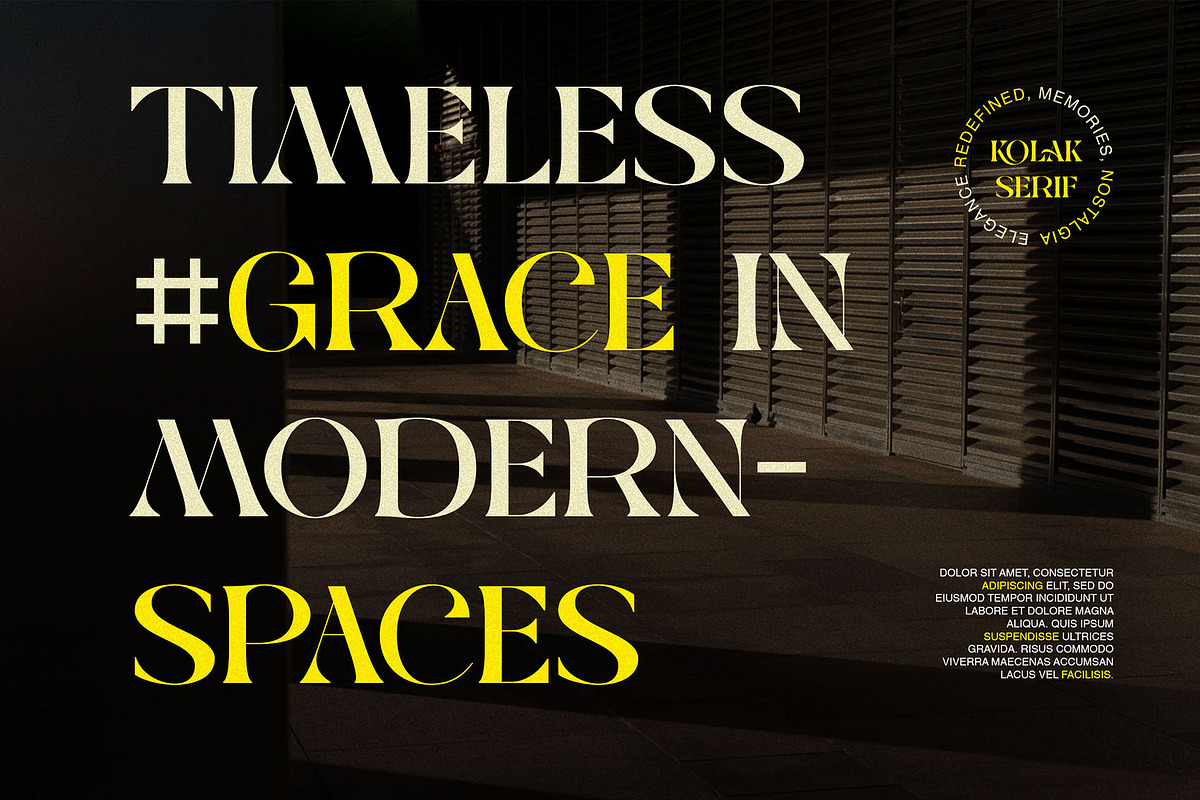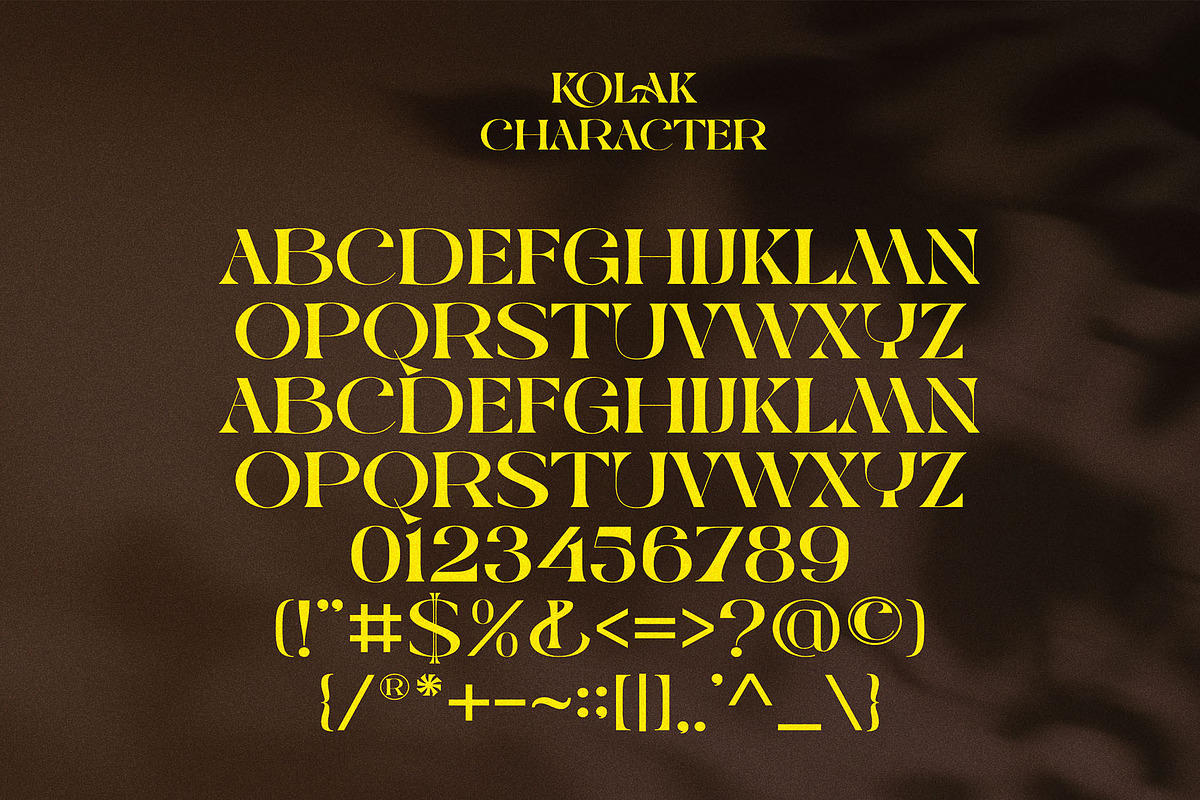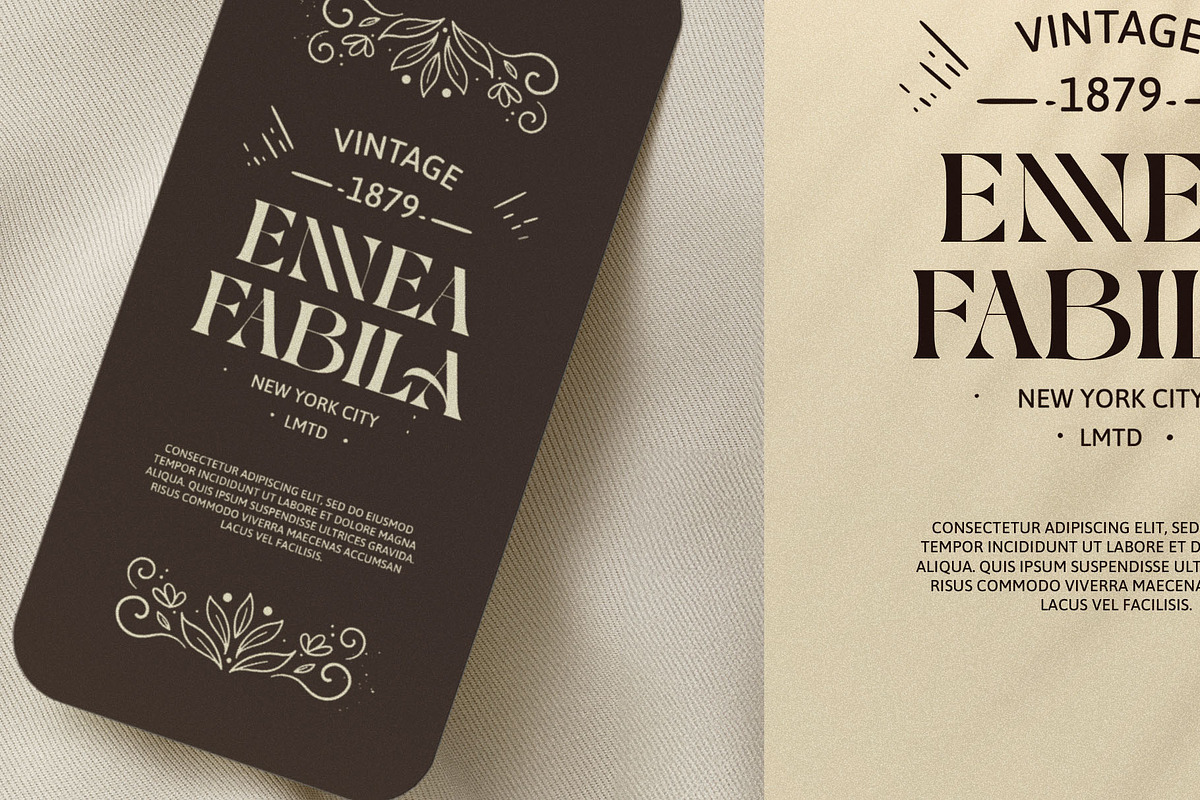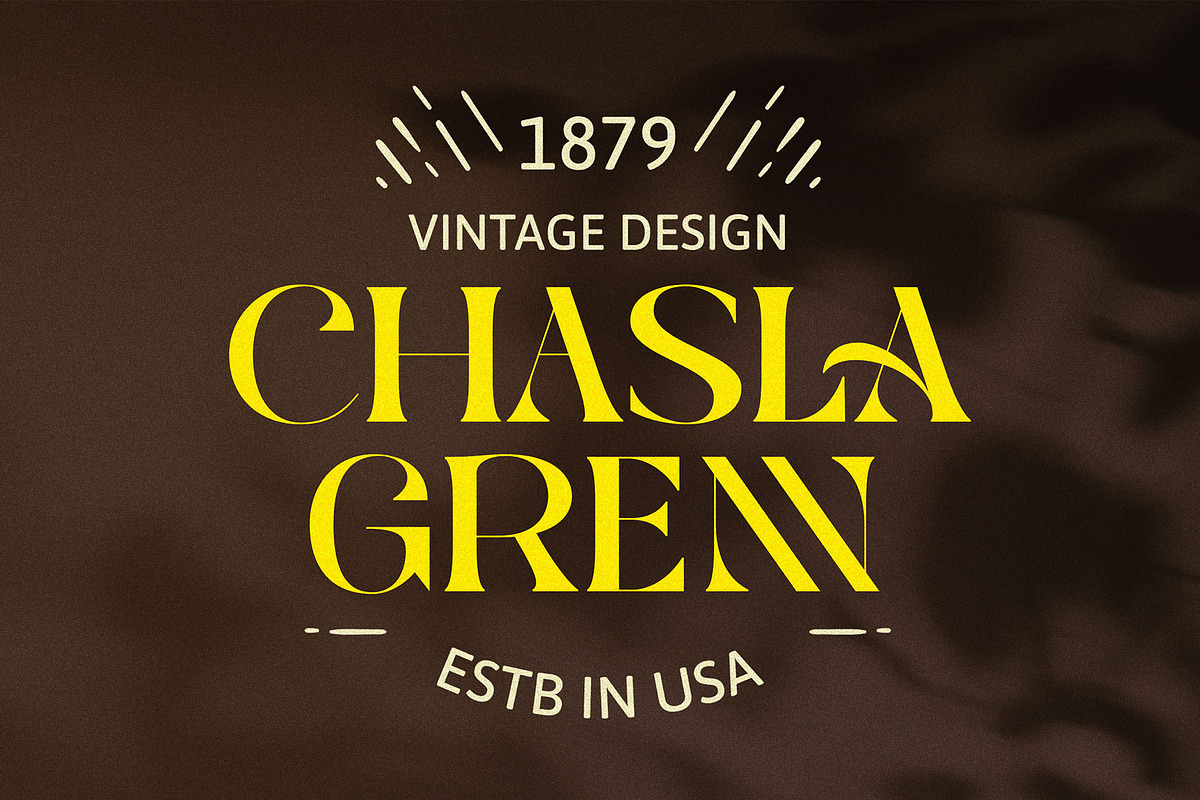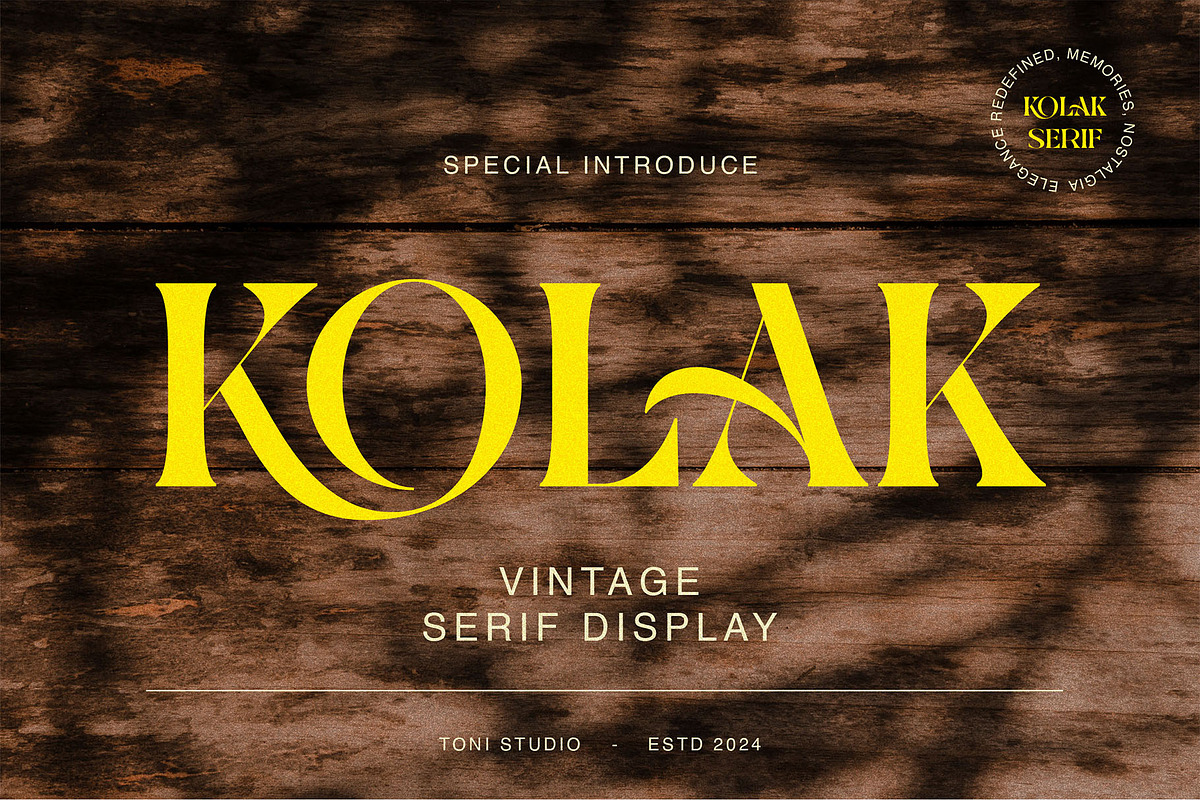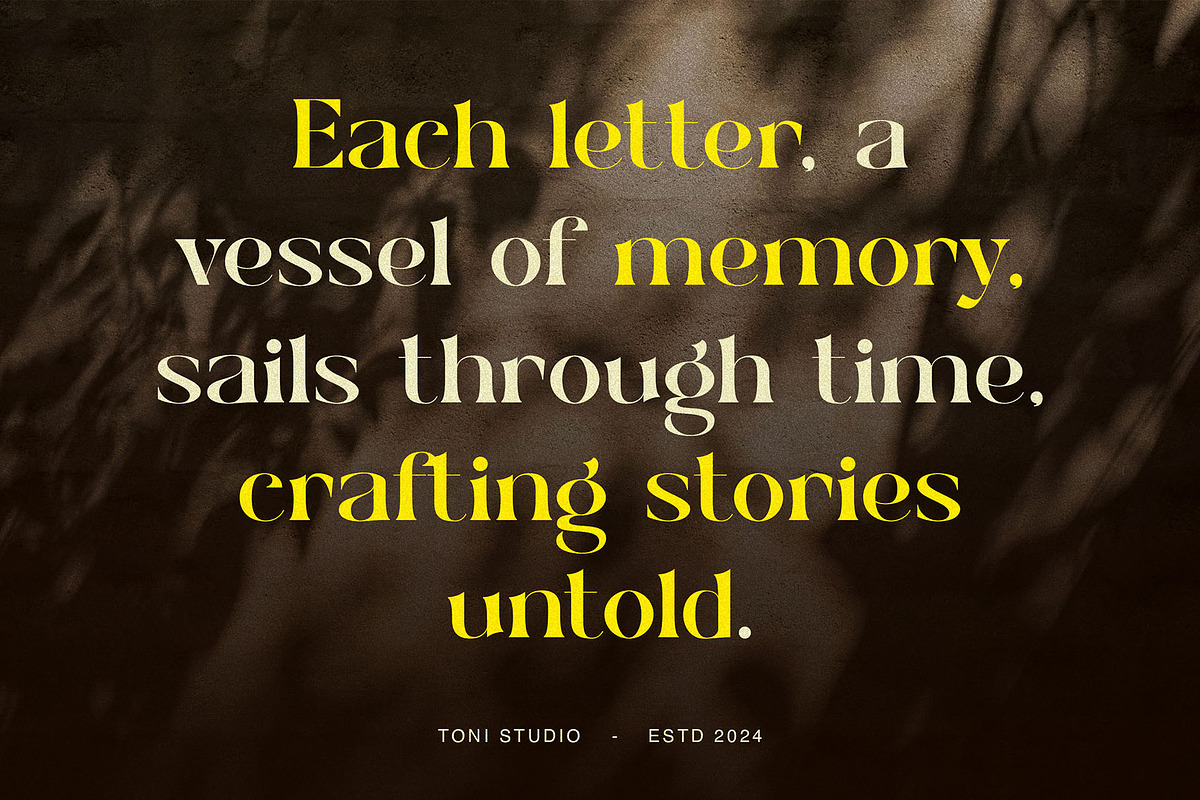
KOLAK-modern vintage
KOLAK is an elegant and classy serif typeface – This font is modern and nostalgic and is perfect for logos, magazines, social media. It's matched and ready to be used together for your next design! For those of you who need an elegant, stylish, classy, chic and modern touch to your designs, this font was created for you! Astrid is built with OpenType features and includes ligatures, numbers, punctuation, and also supports other languages.